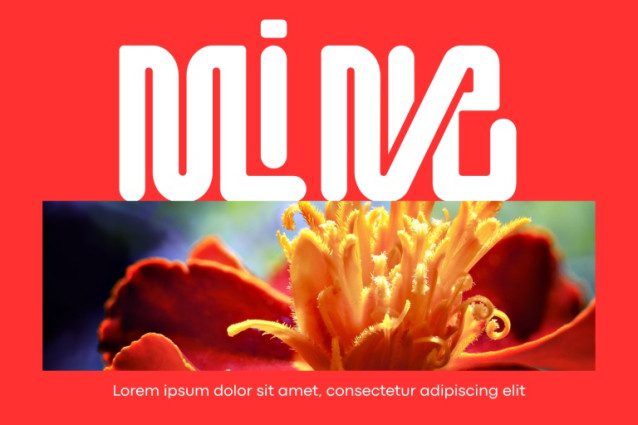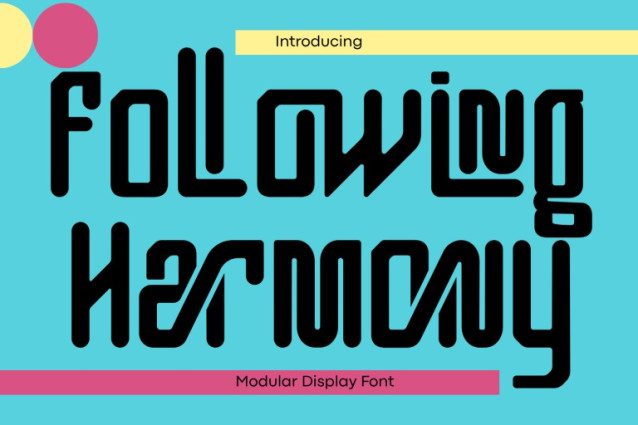
Following Harmony Font
Following Harmony Font, a futuristic Modular Sans-Serif Display Font crafted with bold geometric precision and smooth linear forms. Each letter is built from seamless rounded shapes, giving your design a sense of rhythm, order, and innovation. Perfect for futuristic branding, digital interfaces, posters, or creative typographic compositions.
🔤Features:
Uppercase & Lowercase Letters
Approximately 100 Special Ligatures for seamless combinations
Accented Characters for multilingual support
🔤About 100 ligatures combined with Stylistic Alternates Font: